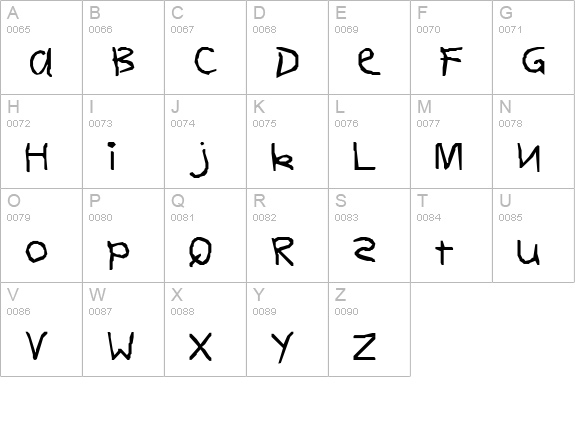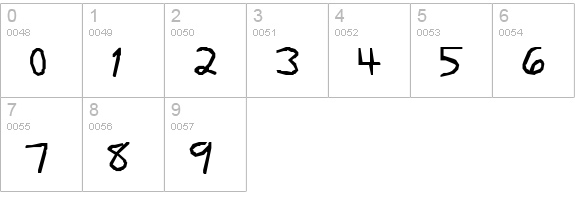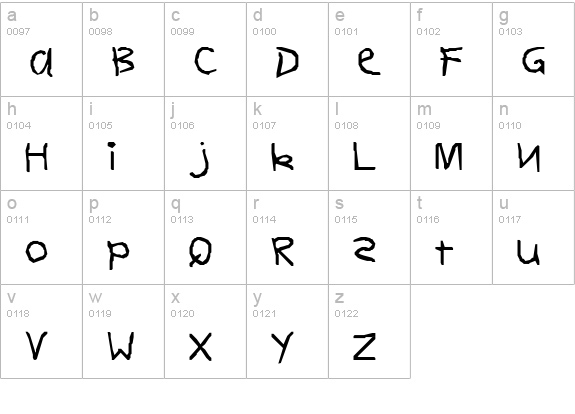
FirstGrader-Normal Font Details
FirstGrader-Normal is the standard, neutral variant in the FirstGrader typeface family \xE2\x80\x94 well suited to general body text, paragraphs, and standard typographic work.
FirstGrader-Normal font is a charming and playful typeface perfect for any project aimed at capturing the innocence and creativity of youth. Its friendly and approachable design makes it ideal for educational materials, children's books, and any other content targeted towards young audiences. With its clear and easy-to-read letters, FirstGrader-Normal font is a great choice for adding a touch of whimsy to your designs. Best of all, FirstGrader-Normal font is available for free download at FontsMarket.com. This means you can easily access this delightful font and use it in your projects without any cost. Don't miss out on the opportunity to add a fun and youthful vibe to your designs with FirstGrader-Normal font - download it today and let your creativity flow!